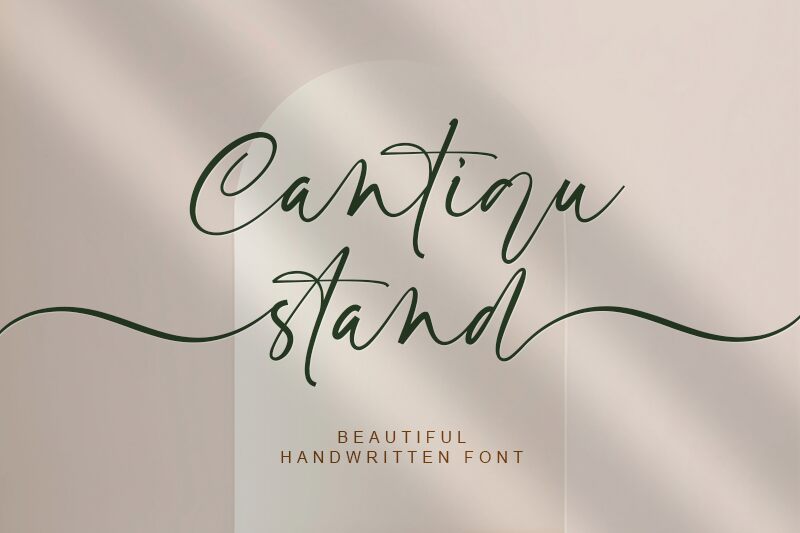
Cantiqu stand
Cantiqu Stand font by Lemonthe is a free handwritten font that celebrates the elegance found in flowing lines and a script-like appearance. Letters take expressive motions, reflecting a modern aesthetic with each curve and corner.
A graceful typeface like Cantiqu Stand deserves to introduce product labels, packages, invitation cards, certificate designs, brochures, menus covers, social media posts and headers among others.